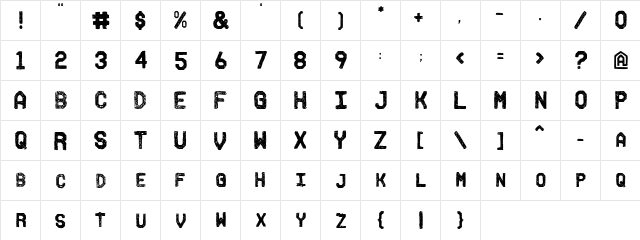
Fh_Ink Regular
| Designer | Dan Meyer (Fictionalhead) |
Design Context for Fh_Ink Typeface
Fh_Ink is a composed and adaptable typeface that performs quietly and consistently across a wide range of design contexts.